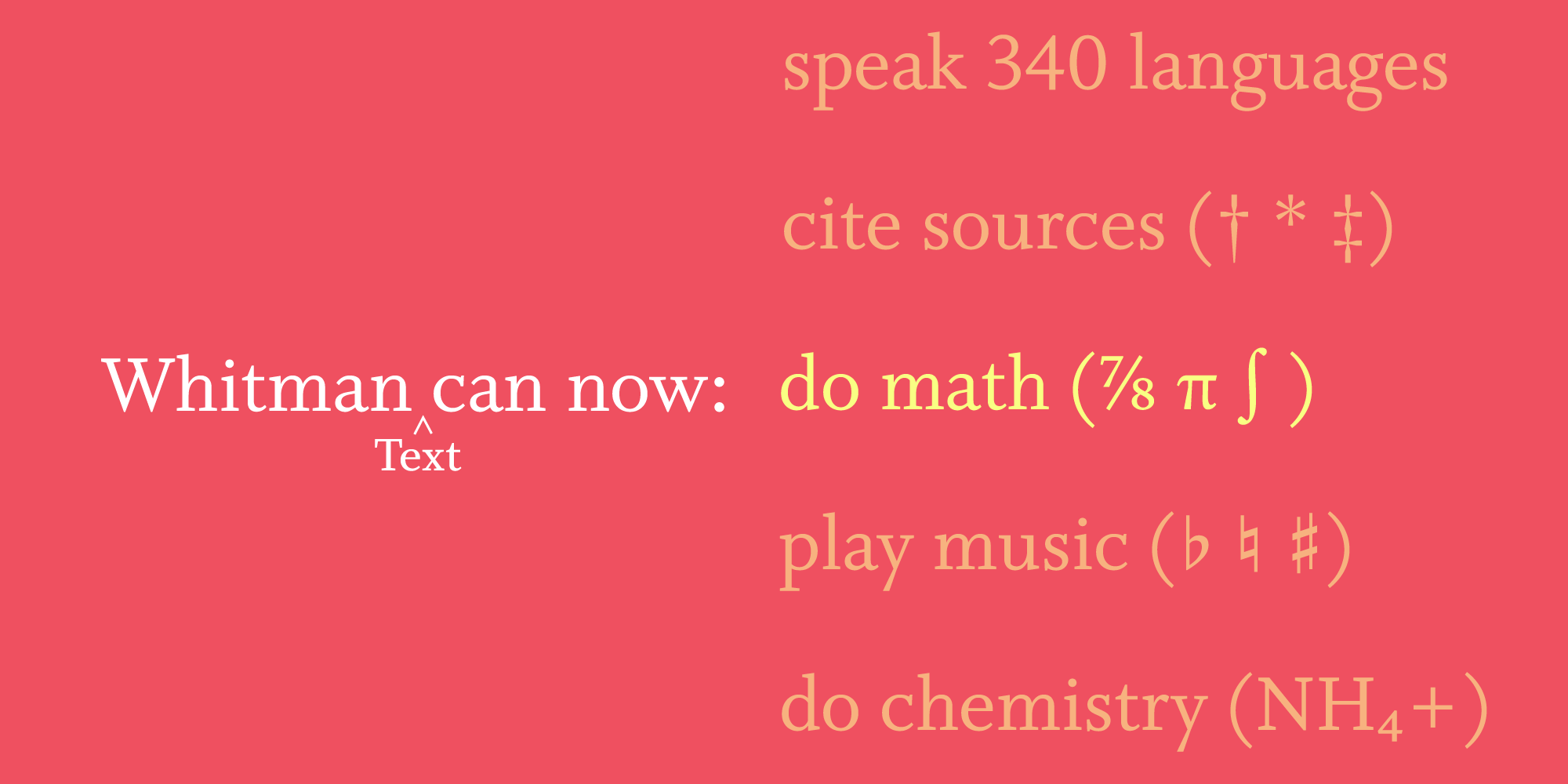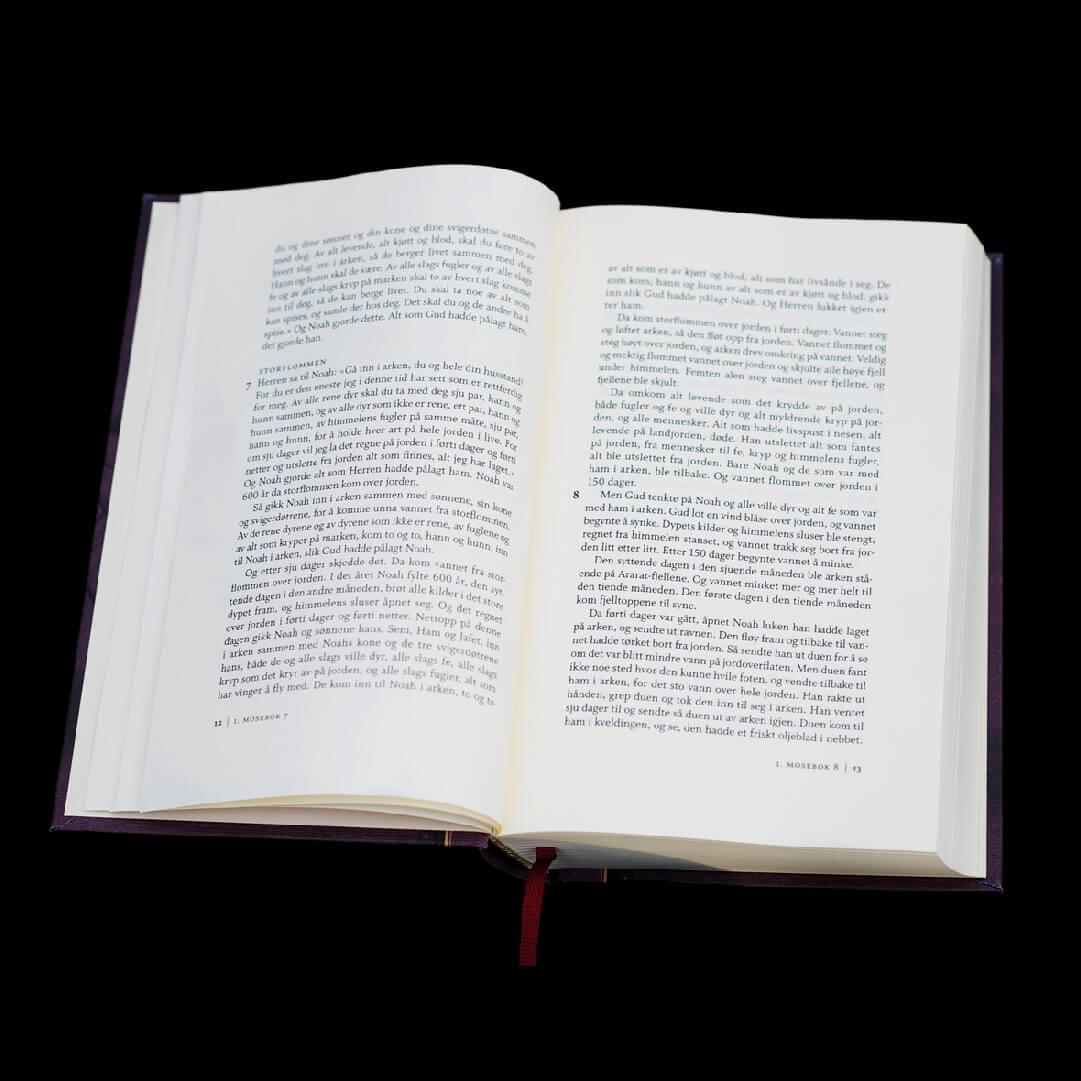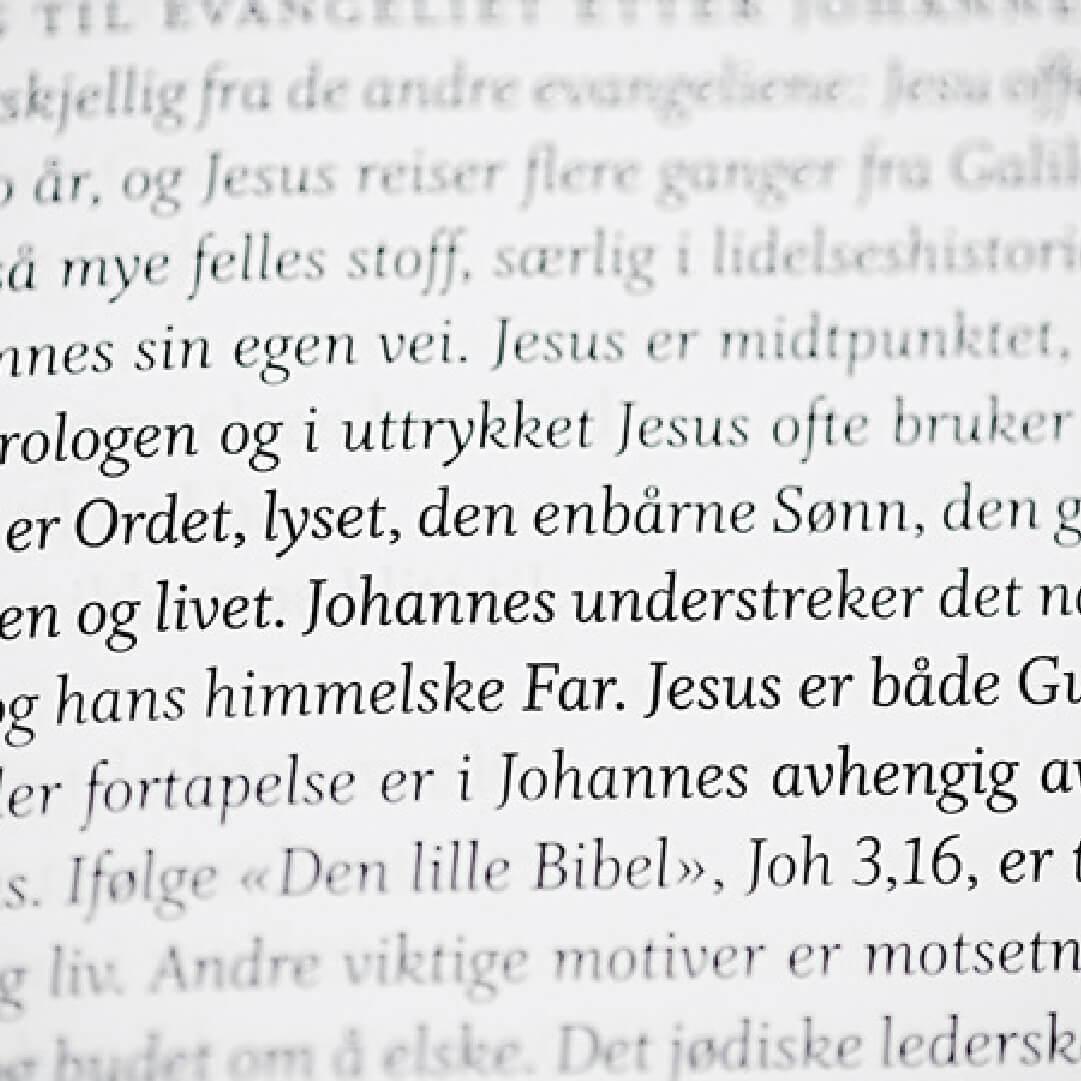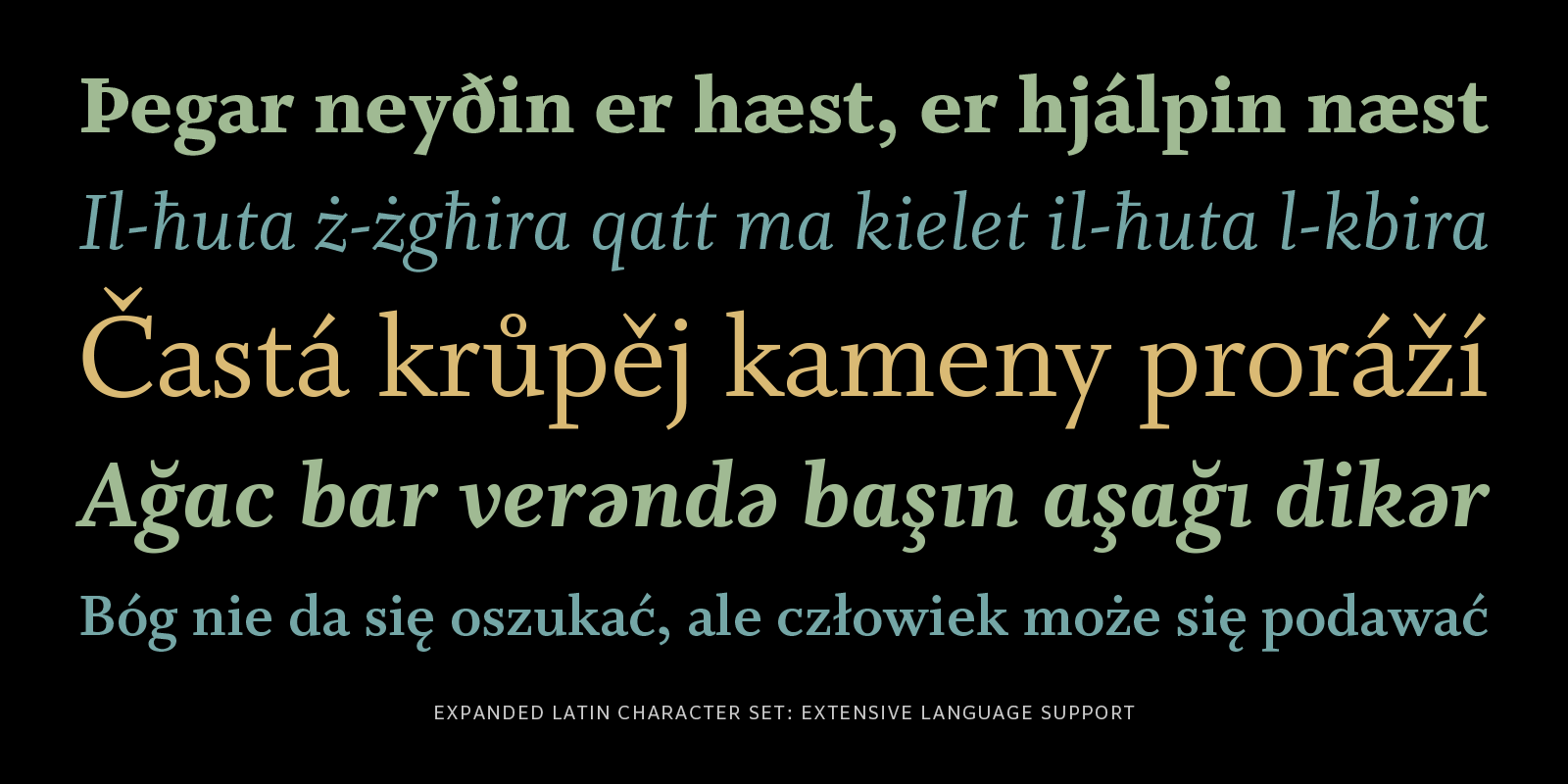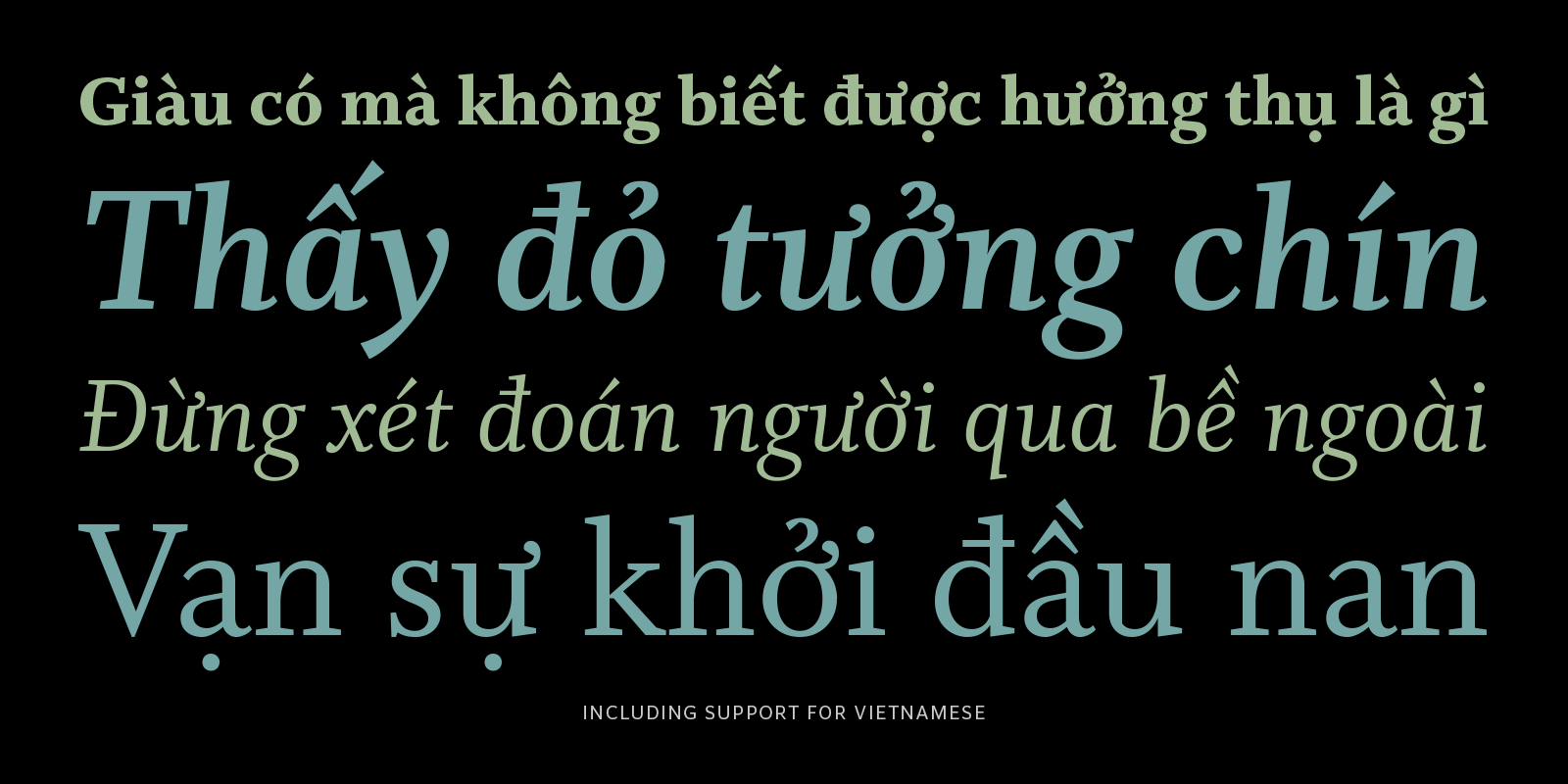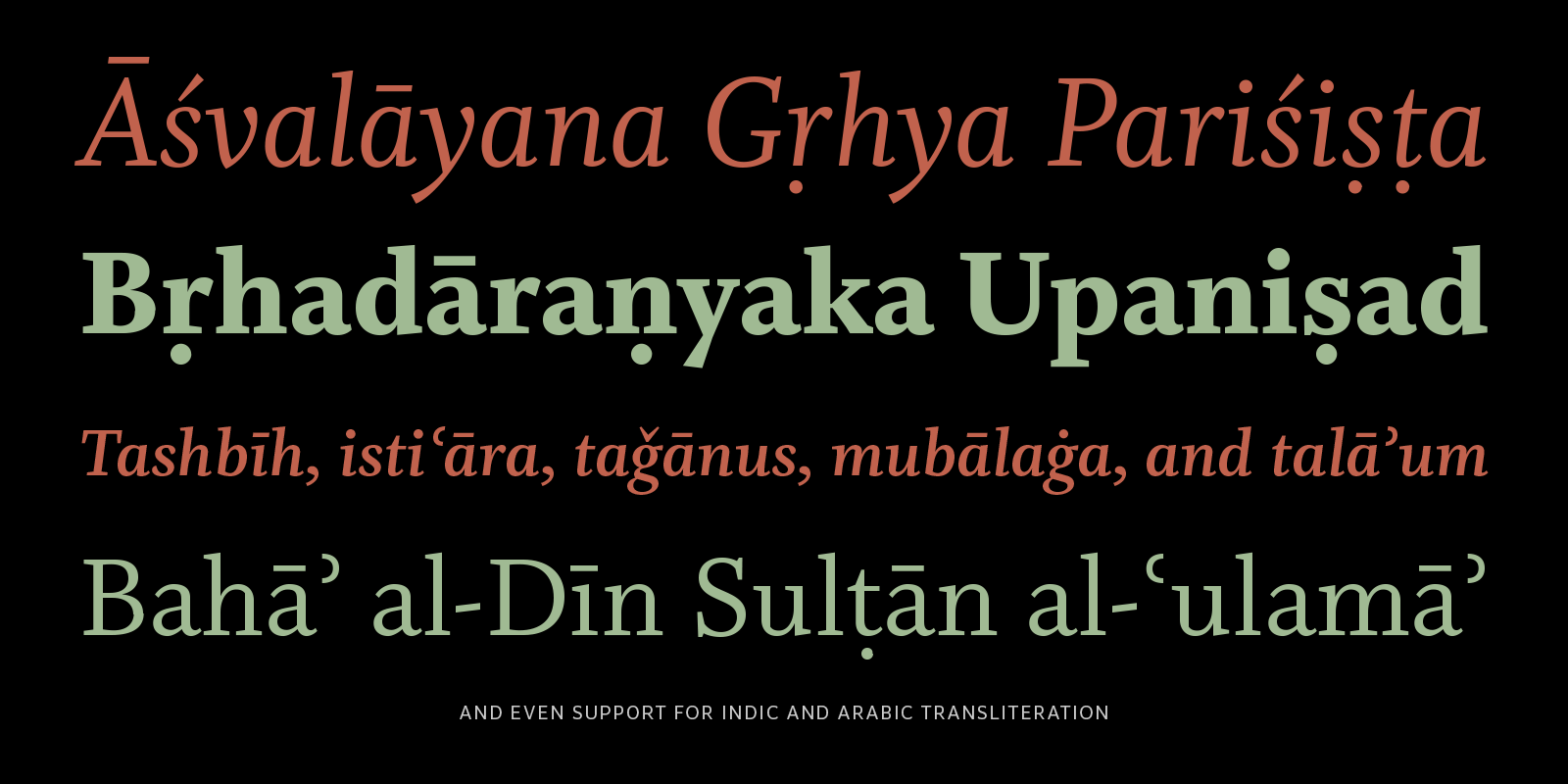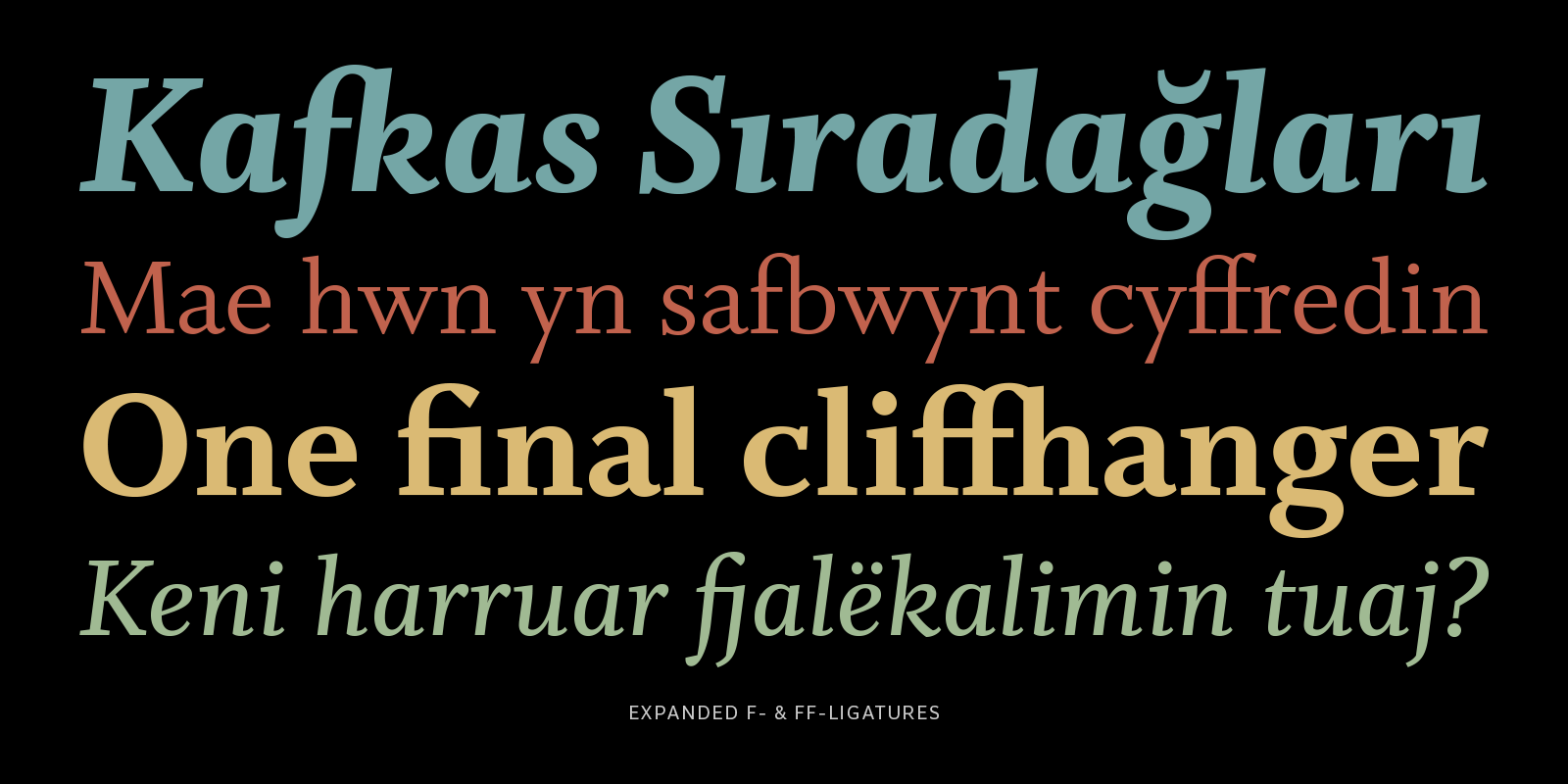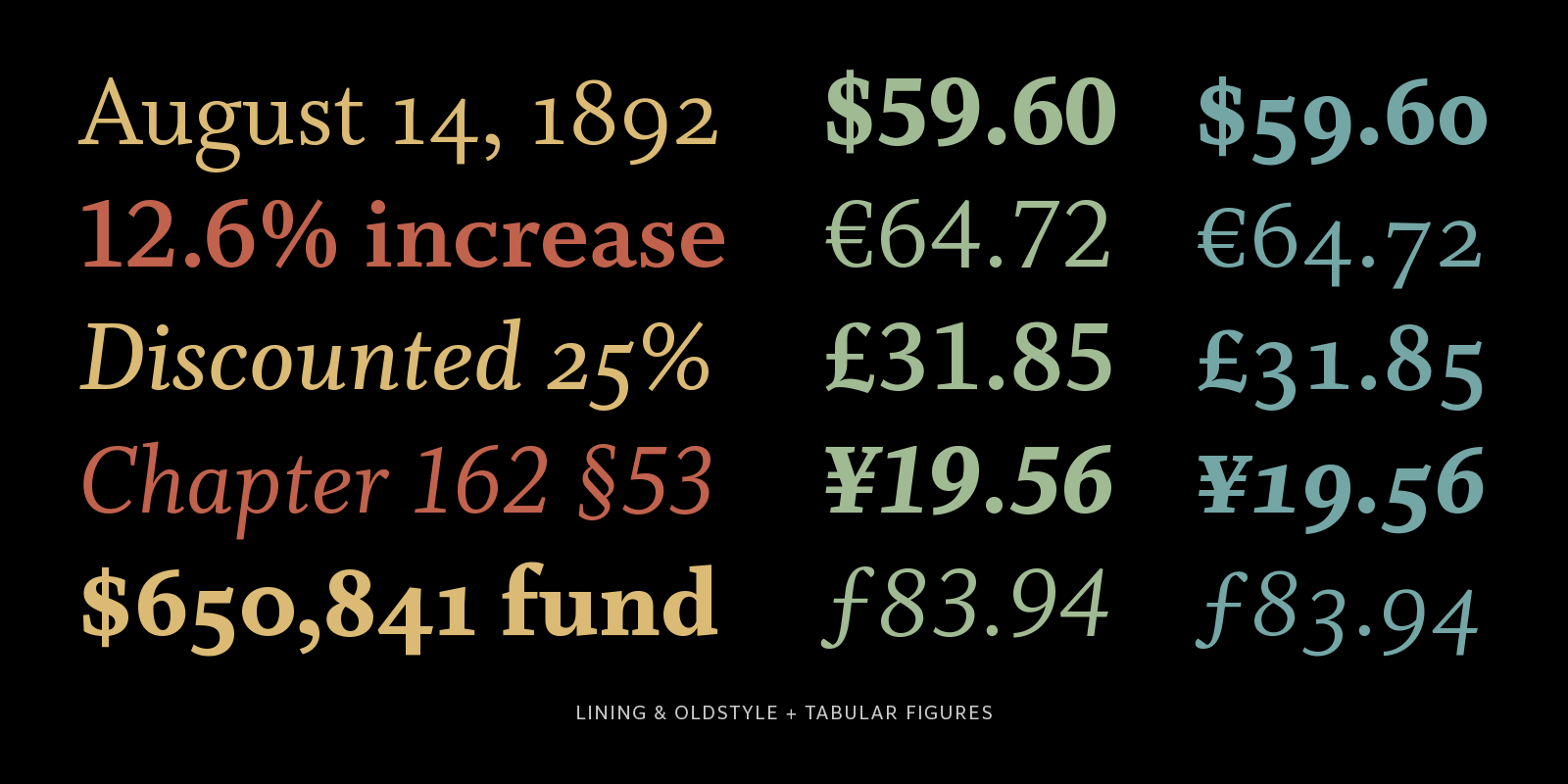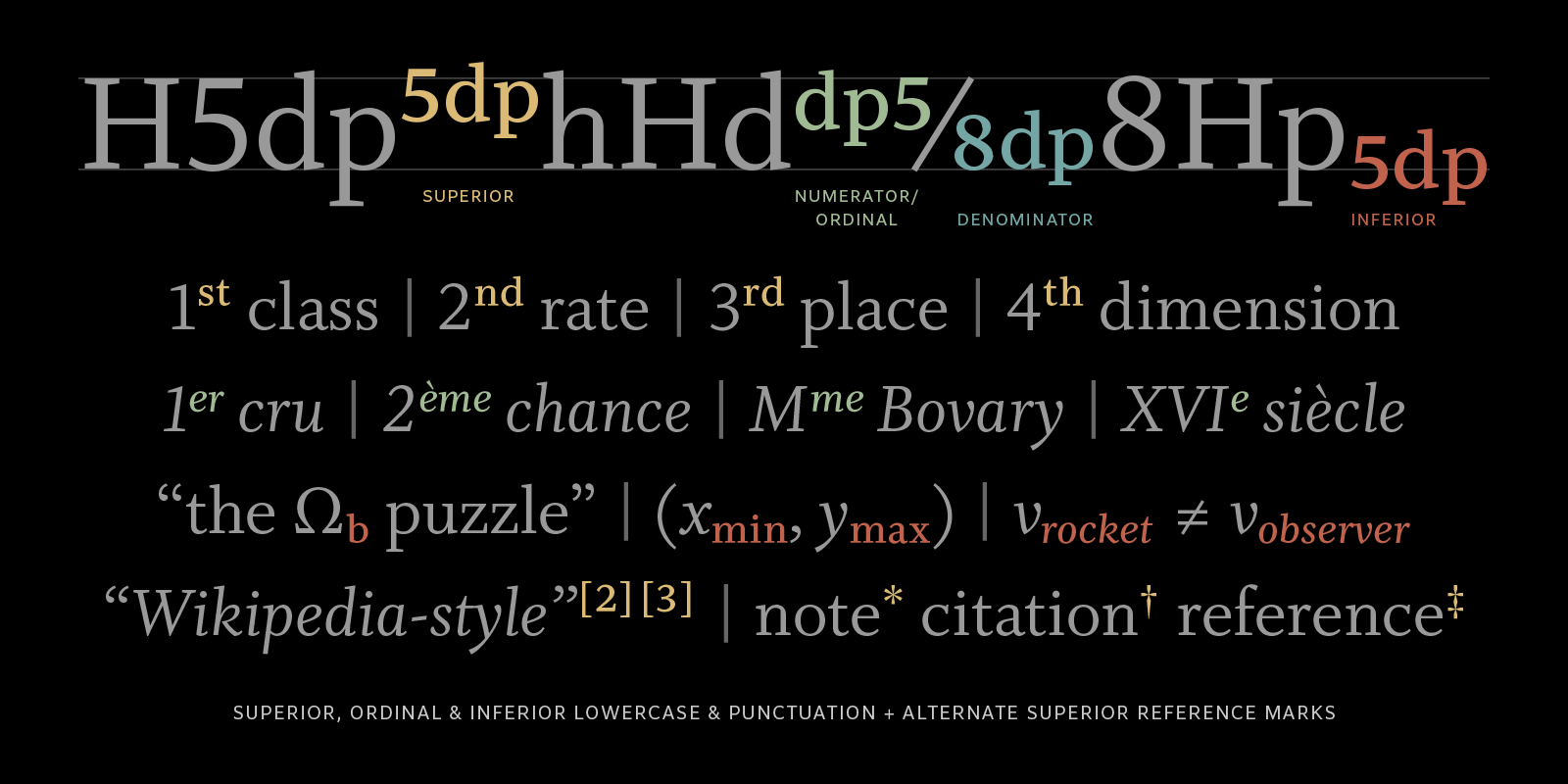
Kent Lew’s Whitman, a staple in the world of typography, is embarking on a new journey with a significant upgrade, rechristened now as Whitman Text. Celebrating its 21st anniversary, this refresh promises to bring more versatility, improved aesthetics, and expanded language support to an already beloved typeface.
Reflecting on the journey of Whitman Text, Lew shared, “I wanted to ensure that the essence of Whitman remained intact while making it more versatile and robust for modern use. This upgrade is about honoring the past while embracing the future. It represents the culmination of many small adjustments over the past two decades, for my own professional use as well as commissioned additions.” This philosophy is evident in the harmonious balance between the original design’s integrity and the new enhancements.
For the original design, Lew found inspiration in the works of W.A. Dwiggins and Eric Gill. Lew treated classical design traits with a spartan finish to create the award-winning Whitman, honored in 2002 by the Type Directors Club. Balanced in text, distinguished and impressive in display, Whitman stands out with its simple elegance—both familiar and distinct. With a thoughtfully refined concept and meticulous attention to detail, the original Whitman is a workhorse to the discerning typographer’s toolkit.
Whitman has long been a favorite among designers for its classic elegance and readability. This upgrade doesn’t just enhance these qualities but builds upon them. One of the key improvements is the extended Latin language coverage, making the typeface more accessible and functional for a broader range of languages and uses. The expansion includes additional diacritics, ensuring that Whitman Text remains a top choice for multilingual projects.
Whitman Text’s new figure styles also deserve mention. They add flexibility and creative freedom, allowing designers to have more control over the typographic elements of their work. In addition to the original old-style and lining figures, Whitman Text now features matching tabular figures. The full range of numerator/denominator and superior/inferior figures can handle everything from arbitrary fractions to footnote calls and chemical formulas (including valence symbols). Book designers will appreciate the matching superior/inferior letters on various alignments, as well as less-common symbols like the permanent paper symbol, for a comprehensive set of tools to meet diverse design needs.
Kent Lew’s upgrade of Whitman Text is a celebration of the typeface’s legacy and a commitment to its future. For those who have loved and used Whitman over the years, this is an exciting opportunity to rediscover an old favorite with new possibilities.
As Lew aptly puts it, “This isn’t just an upgrade; it’s a new chapter in the Whitman story, one that I’m excited to finally make available to the broader design community.” With these improvements, Whitman Text continues to be a timeless choice for designers, now with even more tools at their disposal.
A former book designer and creative director, Kent Lew has been designing type since the early 2000s.
Kent Lew’s journey in design is as storied as the typefaces he creates. After graduating from Willamette University with a degree in Art, he initially worked as a graphic designer and illustrator. Growing up in a family of writers and editors, Lew naturally gravitated toward the design of words and text. This led him to book design and eventually to a role as creative director at Storey Publishing. Today, Lew focuses primarily on type design, font engineering, and typographic consulting.
Lew has provided design and production assistance to prestigious firms such as the Font Bureau, Carter & Cone, and Morisawa. His first typeface, Whitman, was awarded a Certificate of Excellence in Type Design by the Type Directors Club in 2002 and was published by the Font Bureau the following year. The versatility of Whitman led to the creation of Whitman Display and Whitman Banner, styles commissioned by notable publications including the Minneapolis Star Tribune, New Brunswick Telegraph-Journal, and Fortune. More recently, Lew designed the Haffner Text font family for TIME magazine’s 2015 redesign, adding Haffner Display styles for the 2021 refresh.